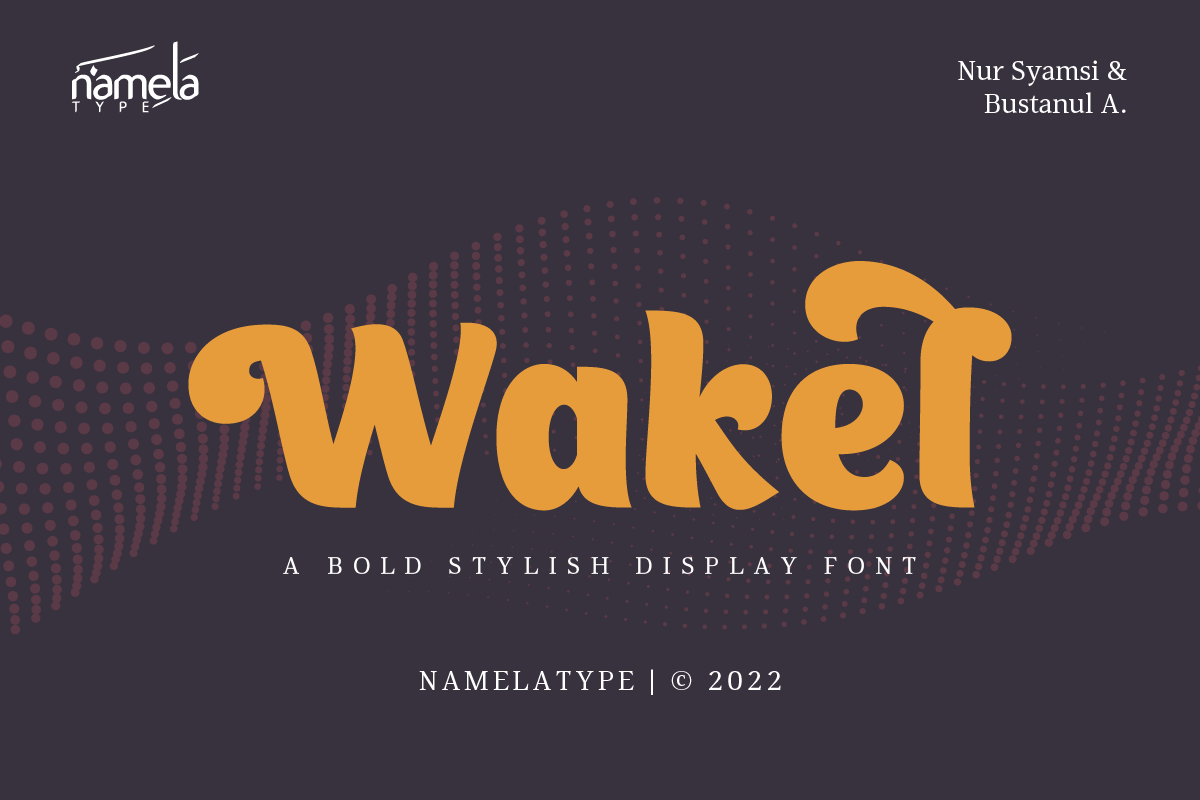
Wakel Regular
Wakel Font - A Bold Stylish Display Typeface for Branding & ePub Not every typeface is meant to fade quietly into a layout. Some are created to command attention—and Wakel Bold Stylish Display Typeface is one of them. Developed by Namelatype, Wakel is a bold display font originally conceived as a bilingual system. In this version, however, the focus is on its Latin presentation—revealing how its structure, clarity, and strength make it highly effective for modern branding and digital publishin